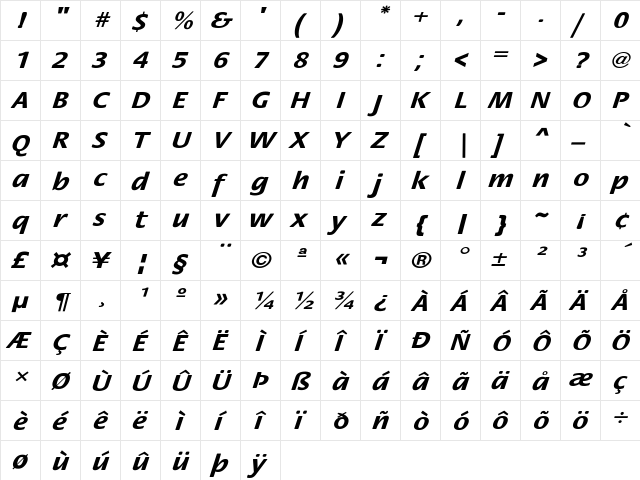
FloraExtObl-Bold Regular
Design Context for FloraExtObl-Bold Typeface
FloraExtObl-Bold is a composed and adaptable typeface that performs quietly and consistently across a wide range of design contexts. Its bold stroke weight gives it real presence on the page.